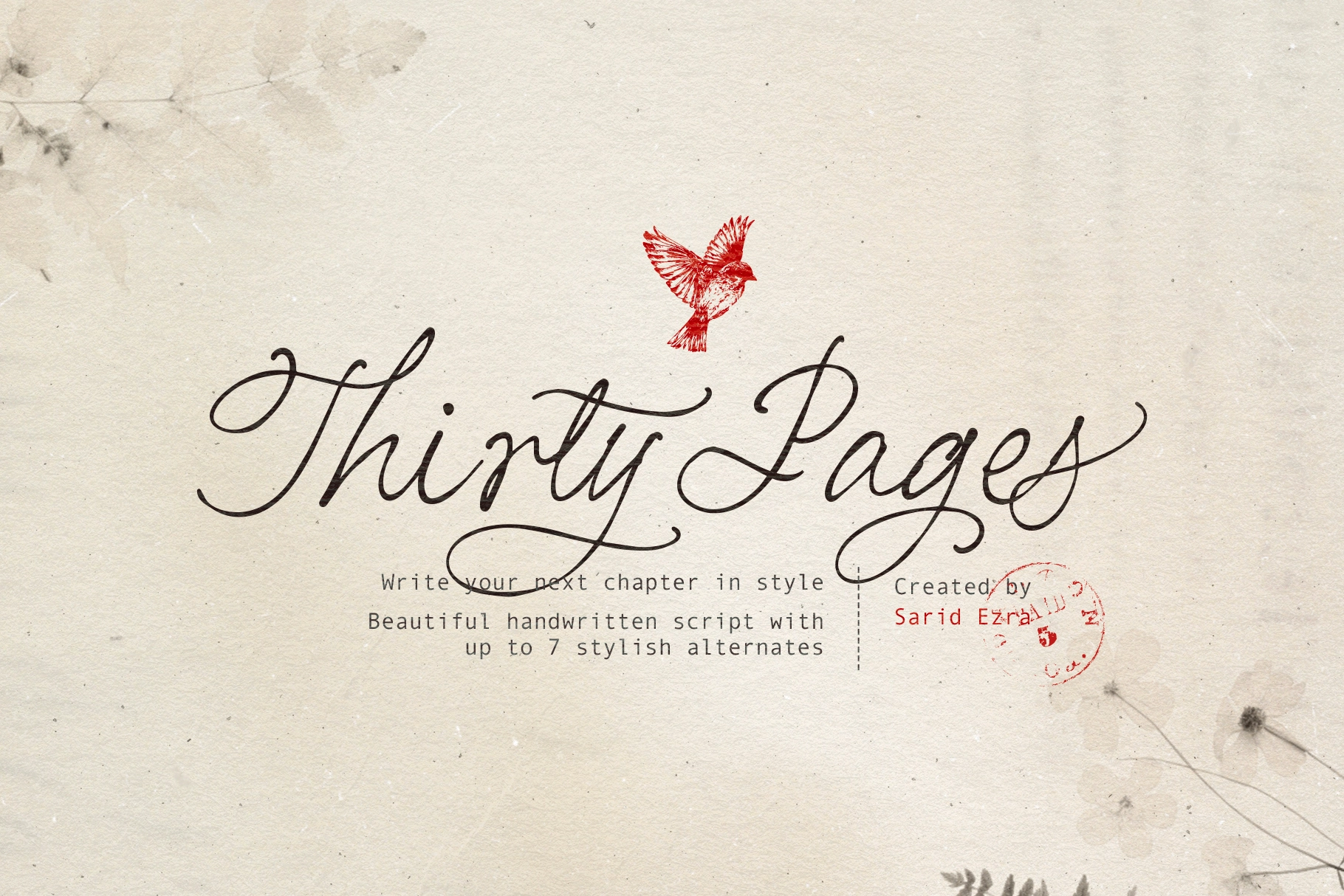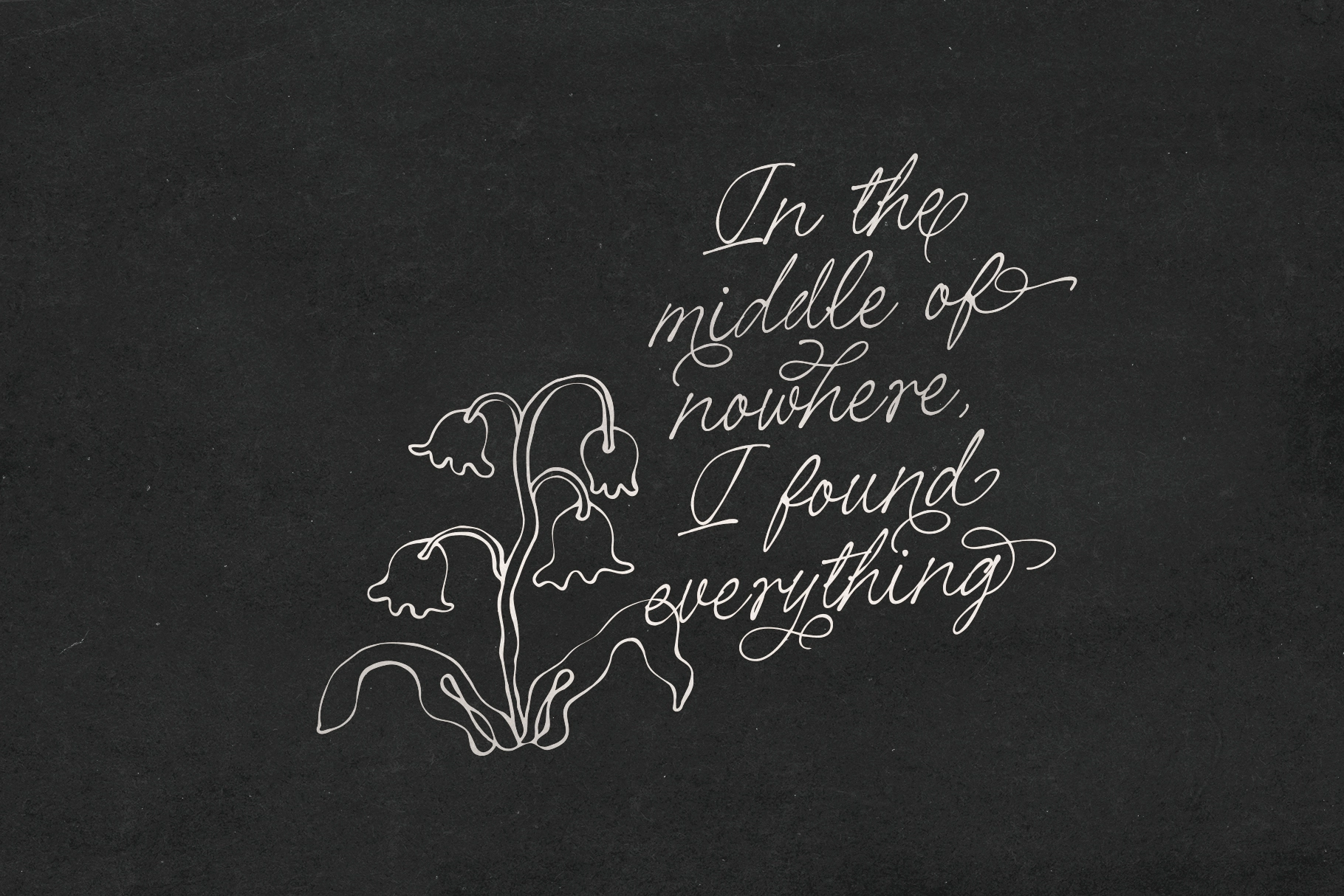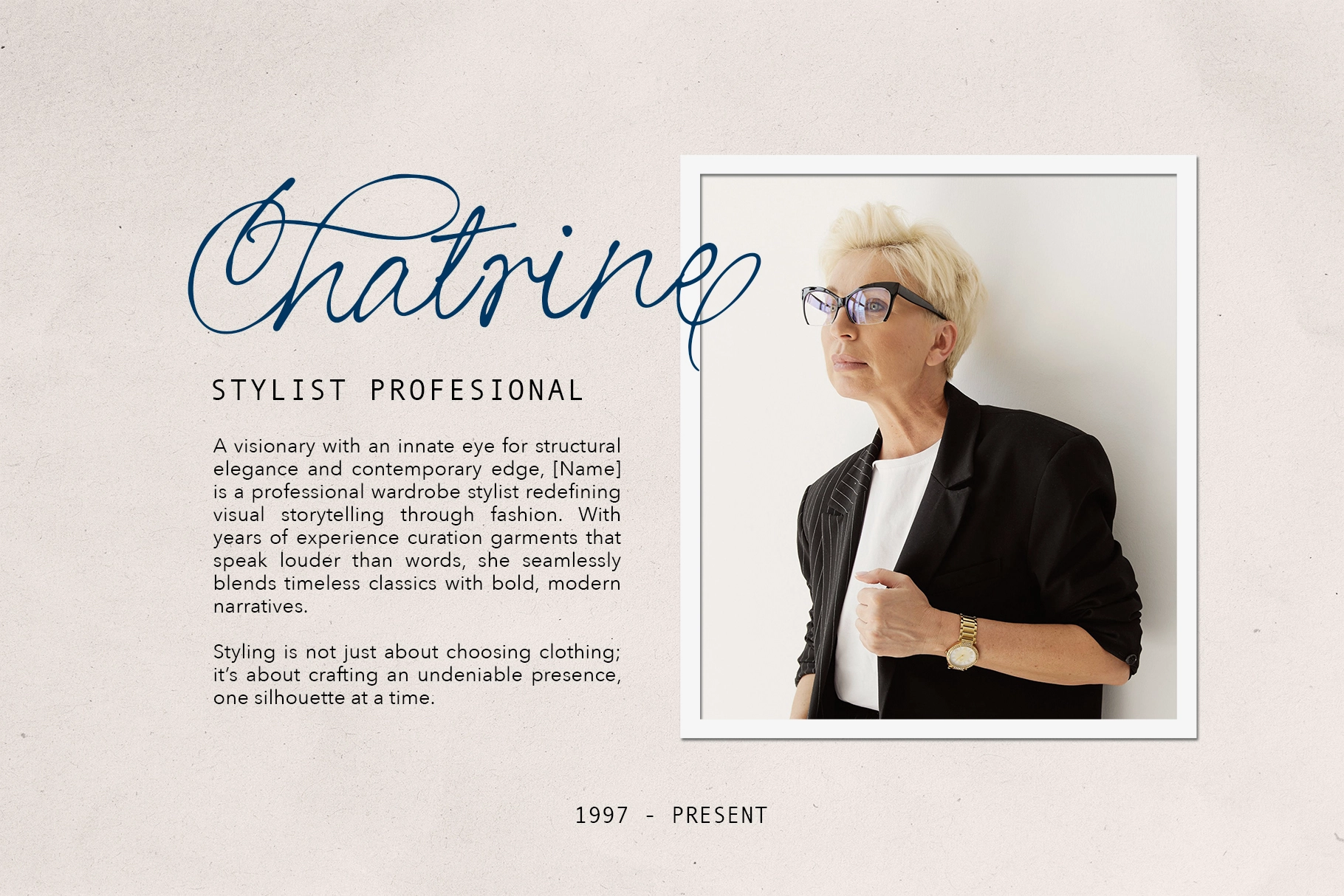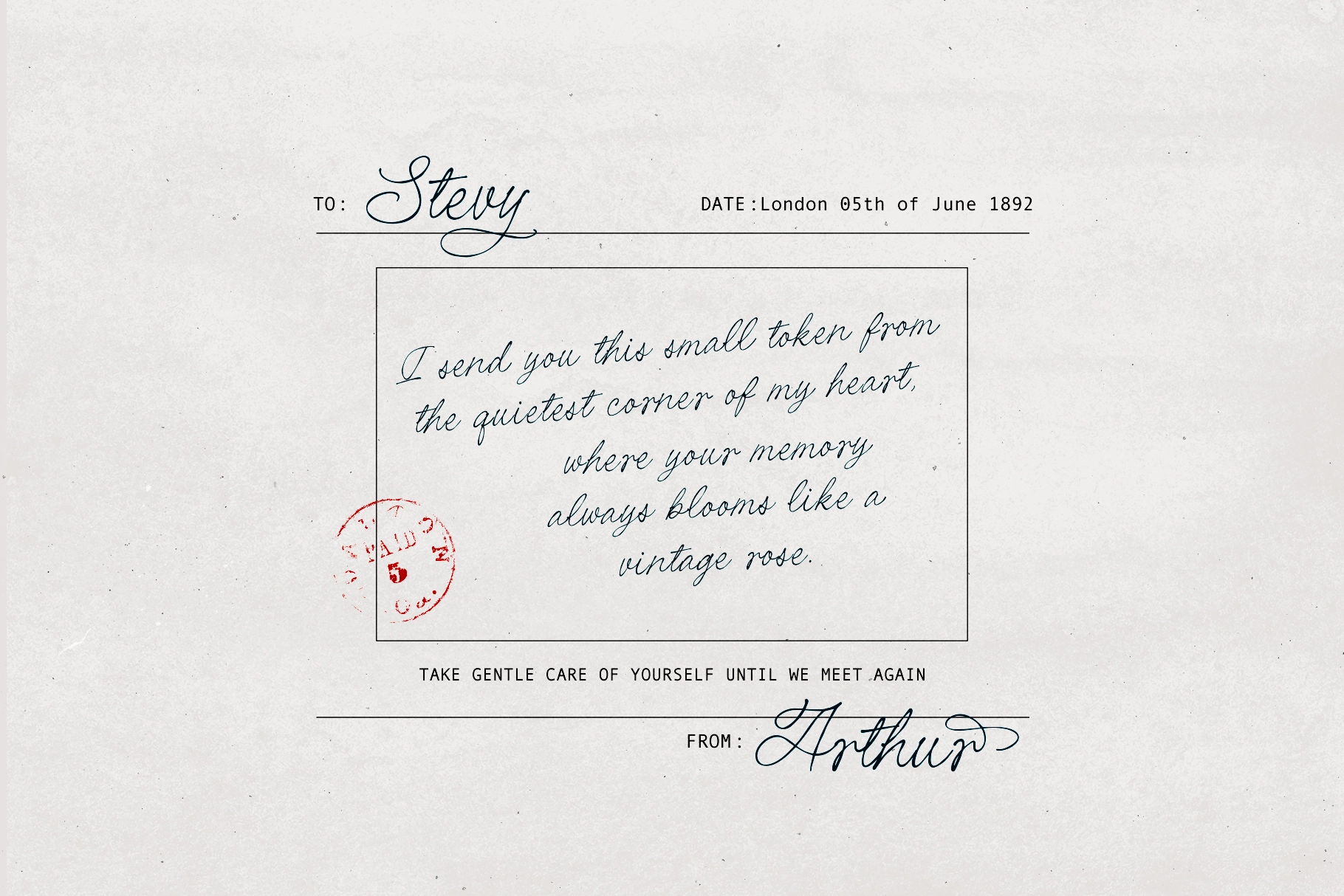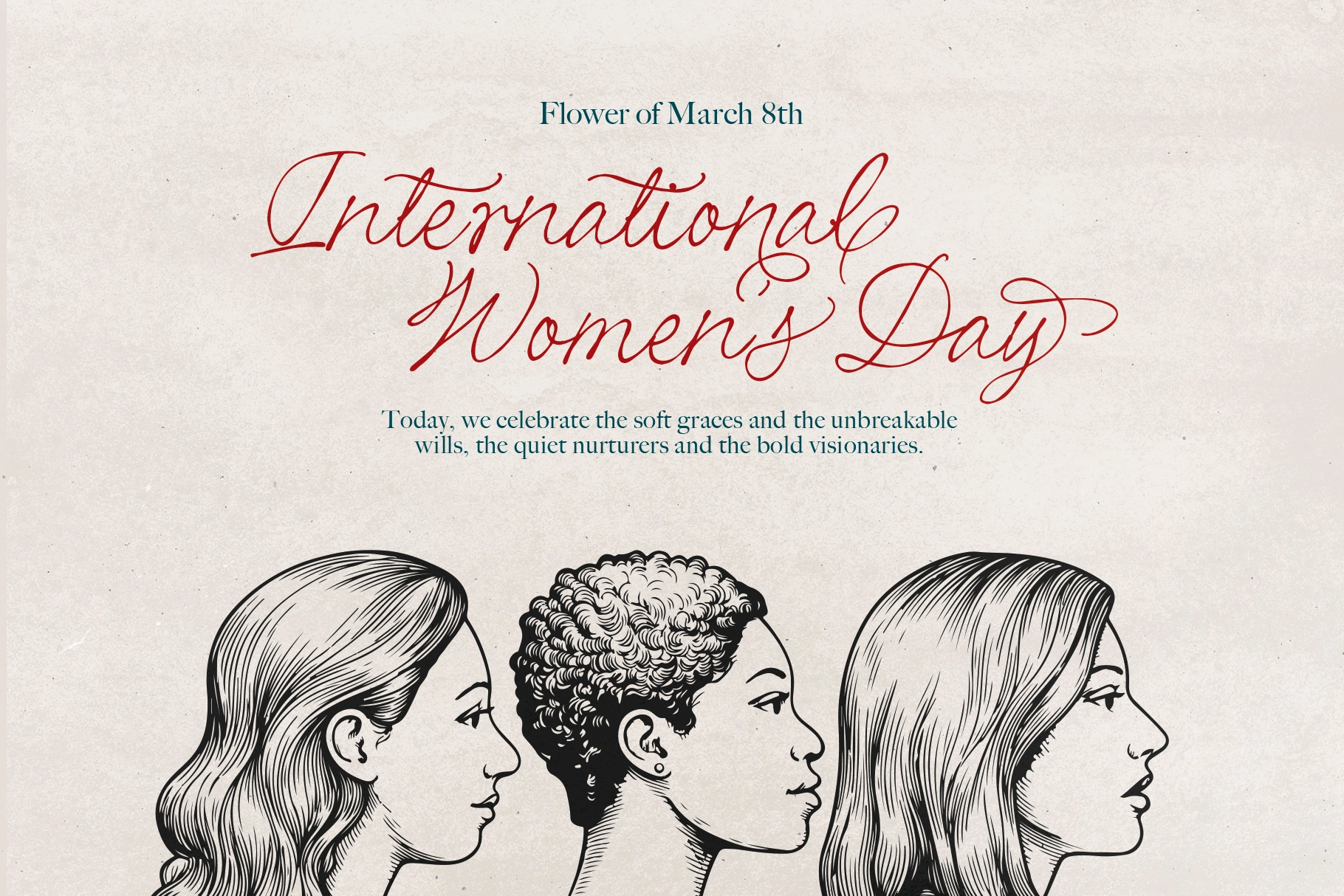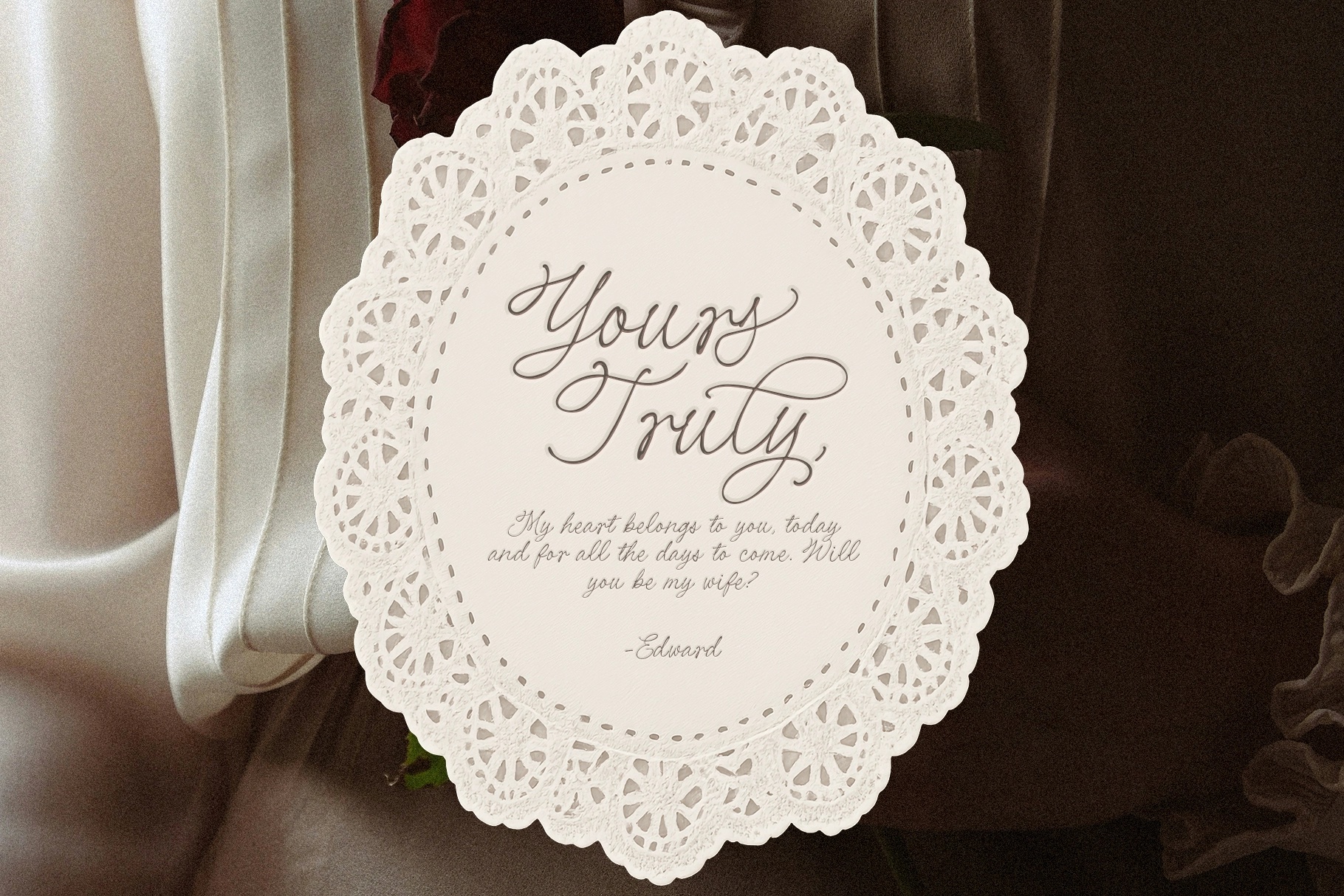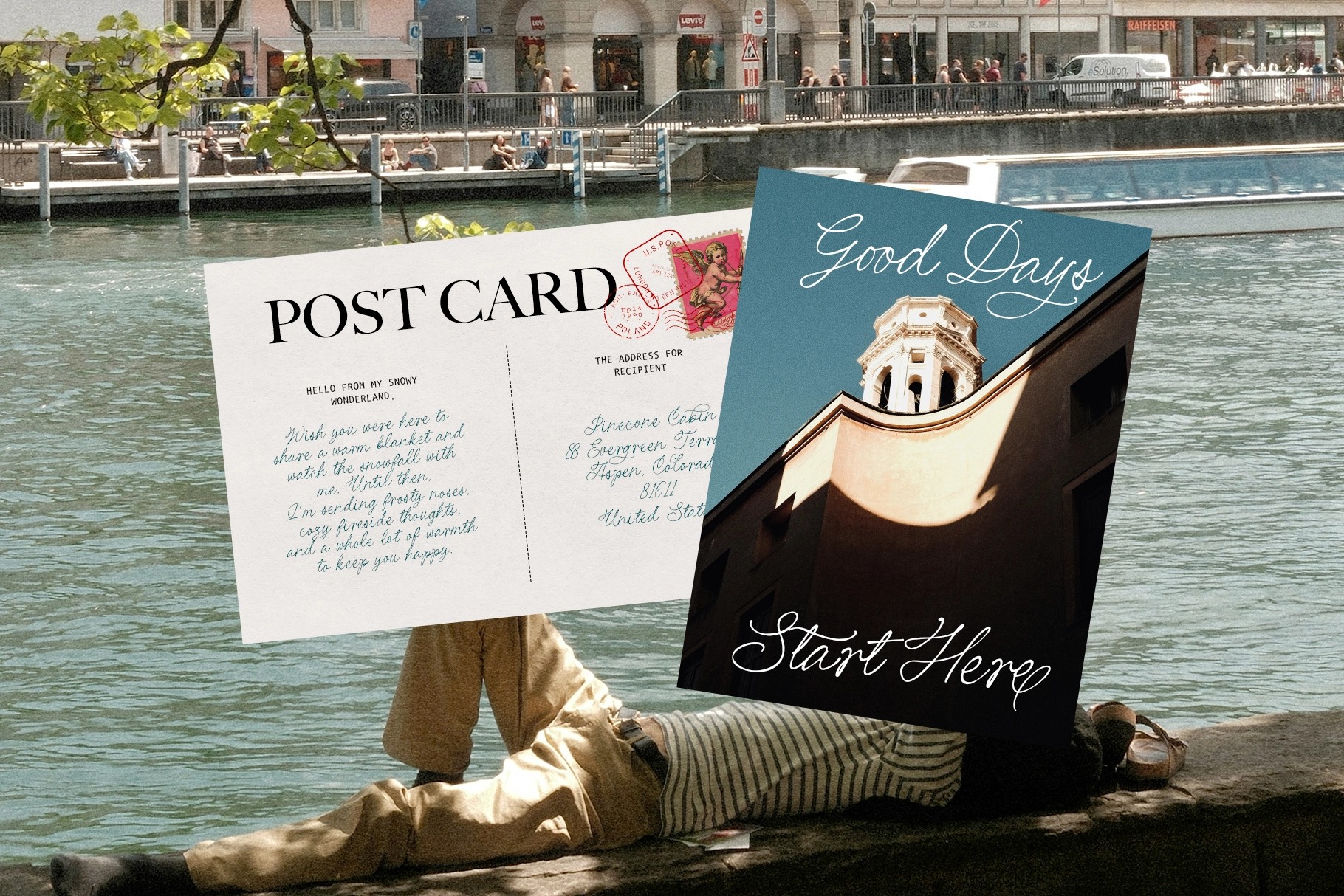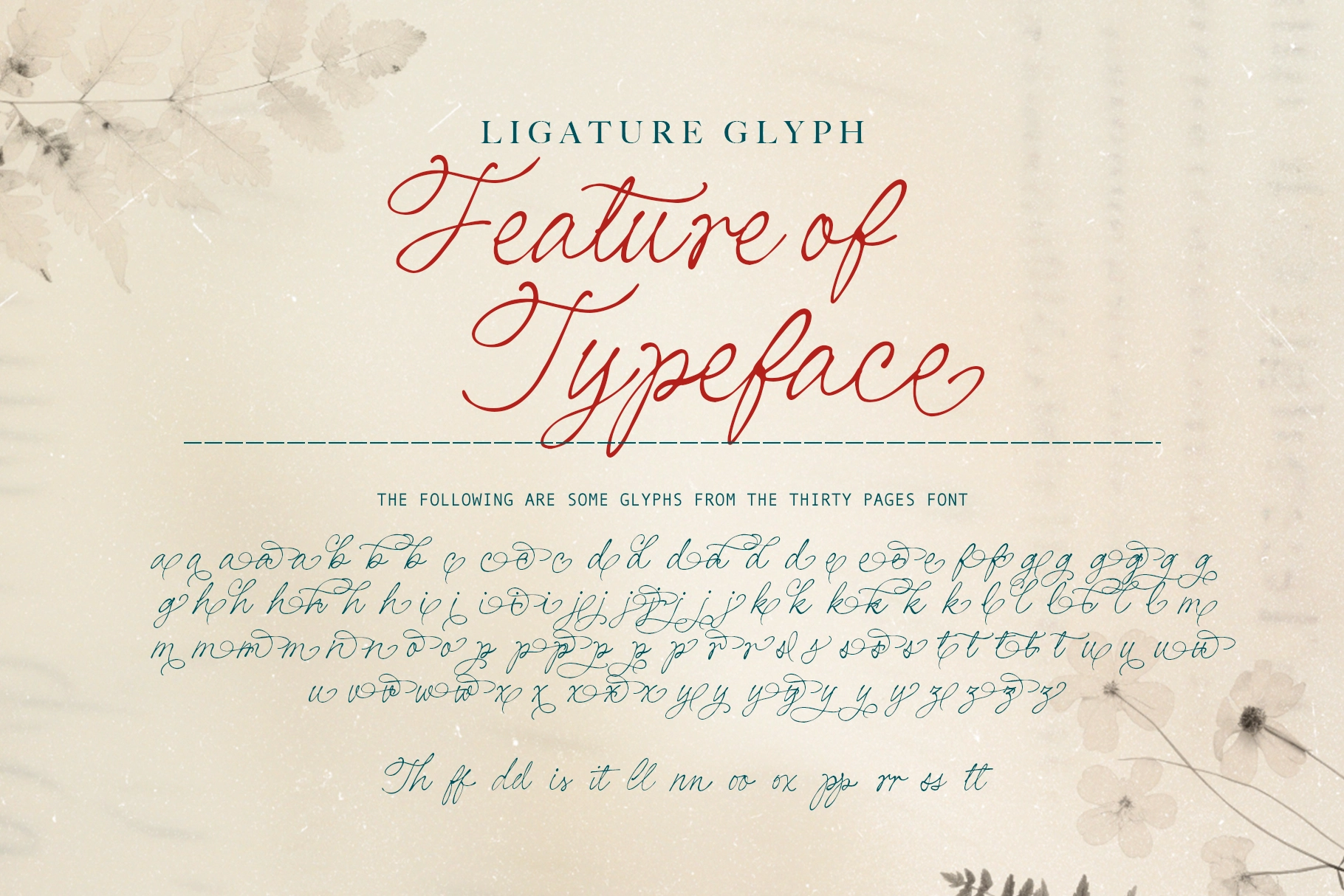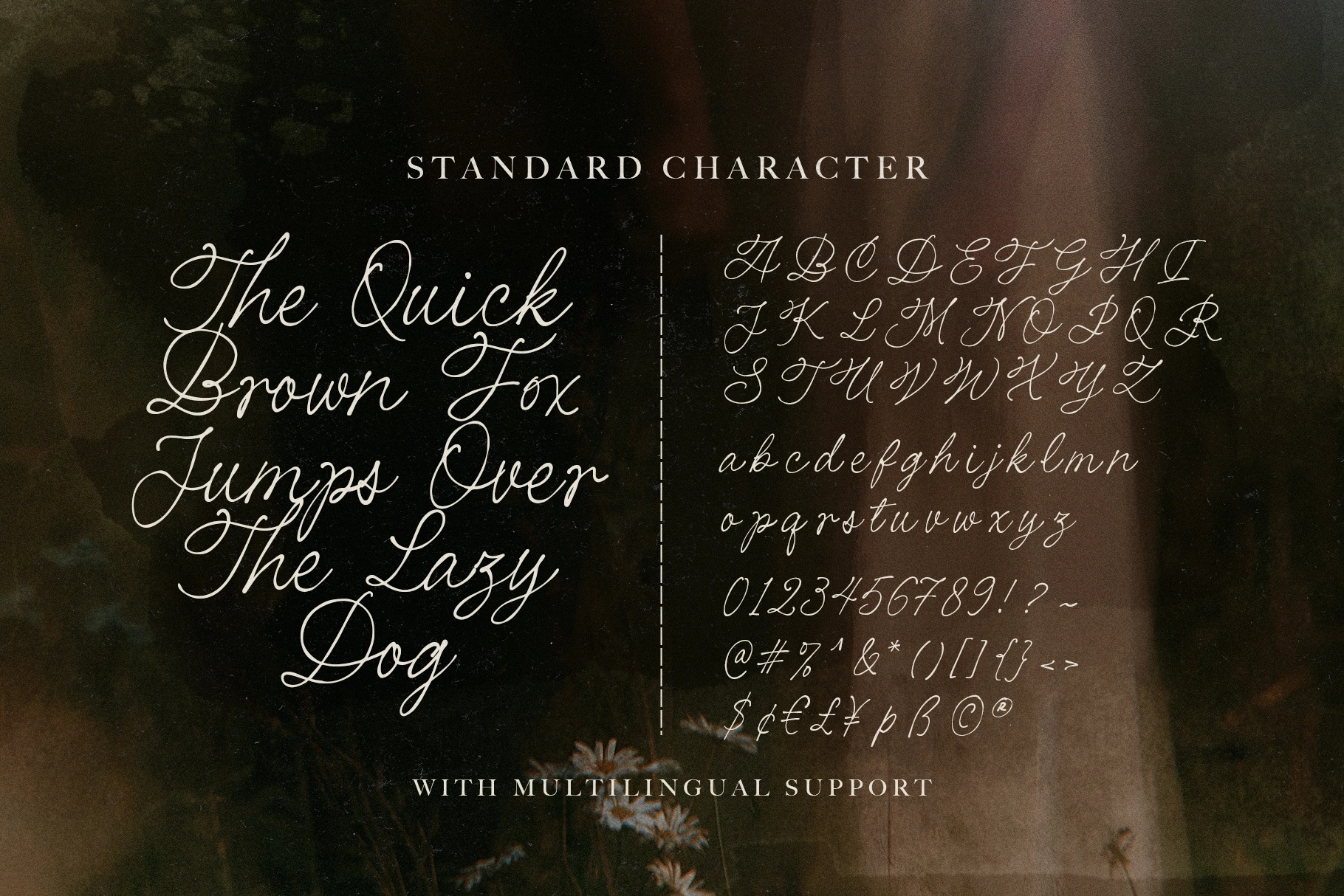
Thirty Pages - Vintage Handwritten Script Font
Thirty Pages
Love letters from a century ago rarely ran in a straight line — ink dragged, loops swelled, and a signature always trailed into its own flourish. Thirty Pages is a vintage handwritten script font built on that same uneven hand: fine, wandering strokes, generous loop-tails on ascenders, and a rhythm that leans and settles line by line rather than marching in a grid. Up to seven stylish alternates per letter and a set of connecting ligatures keep every word from repeating itself.
Use it for stationery branding, perfumery and tearoom logos, candle and soap packaging, wedding suites, literary event posters, book titles, chapter openers, pull quotes, and quote-card social graphics.
- ligatures and up to 7 stylistic alternates per letter;